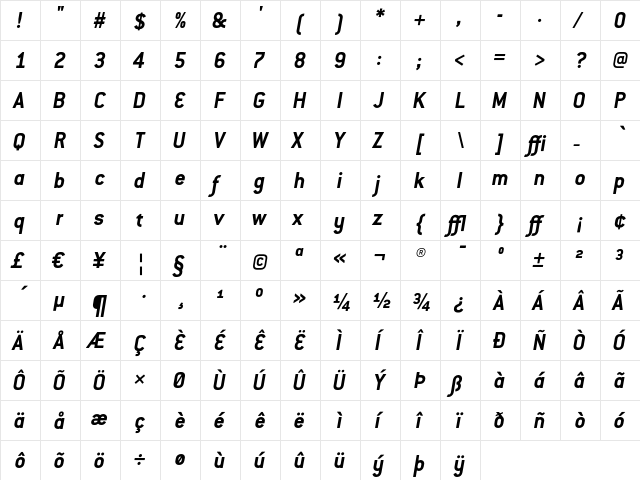
ConduitITC BoldItalic Font Preview
Design Context for ConduitITC Typeface
ConduitITC takes a measured approach to typography — its balanced proportions and neutral character make it a reliable workhorse for both digital and print work. The dynamic lean of this cut emphasises speed and emphasis in any layout. The heavy weight commands attention and anchors typographic hierarchies. The condensed width makes it efficient for tight spaces without sacrificing legibility.
Pro Tip: Use ConduitITC for emphasis, pull quotes, and subheadings where its slanted energy can add rhythm to the layout.